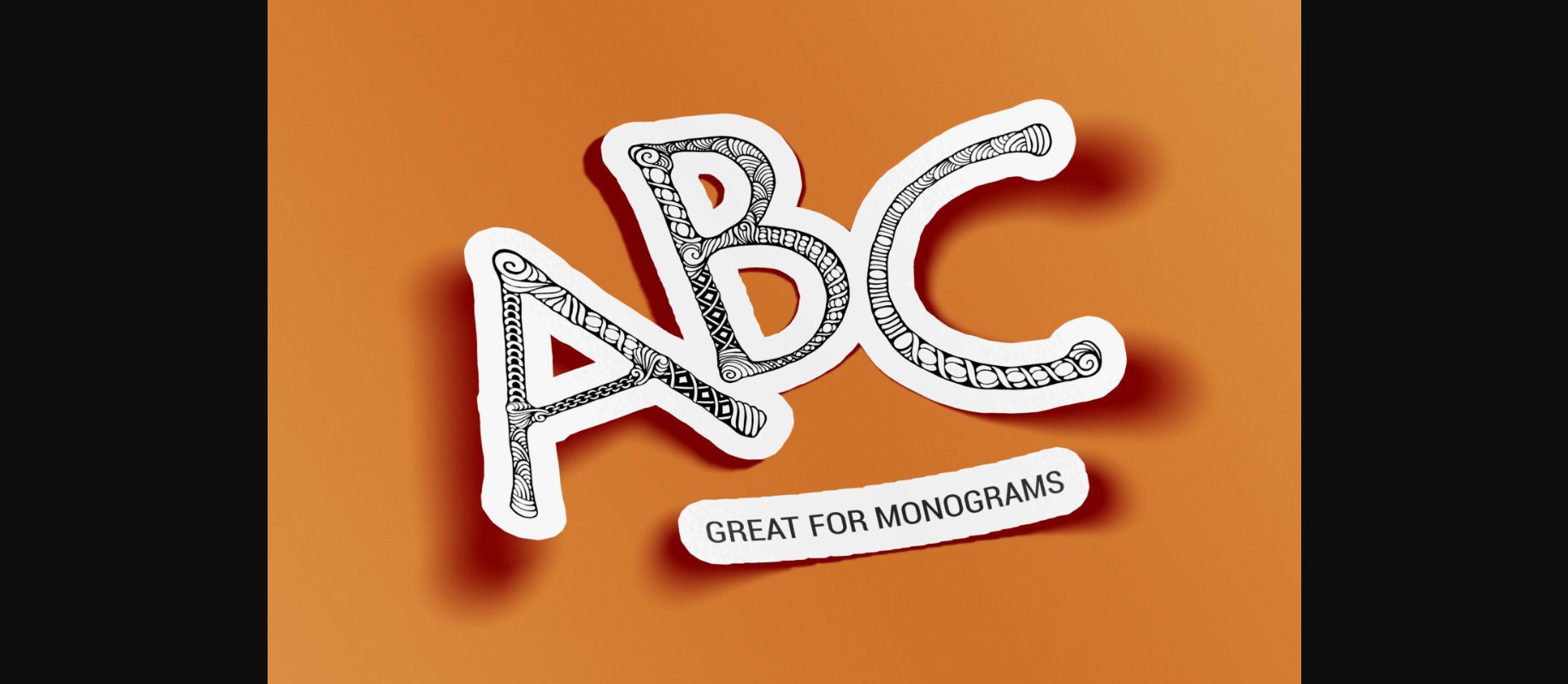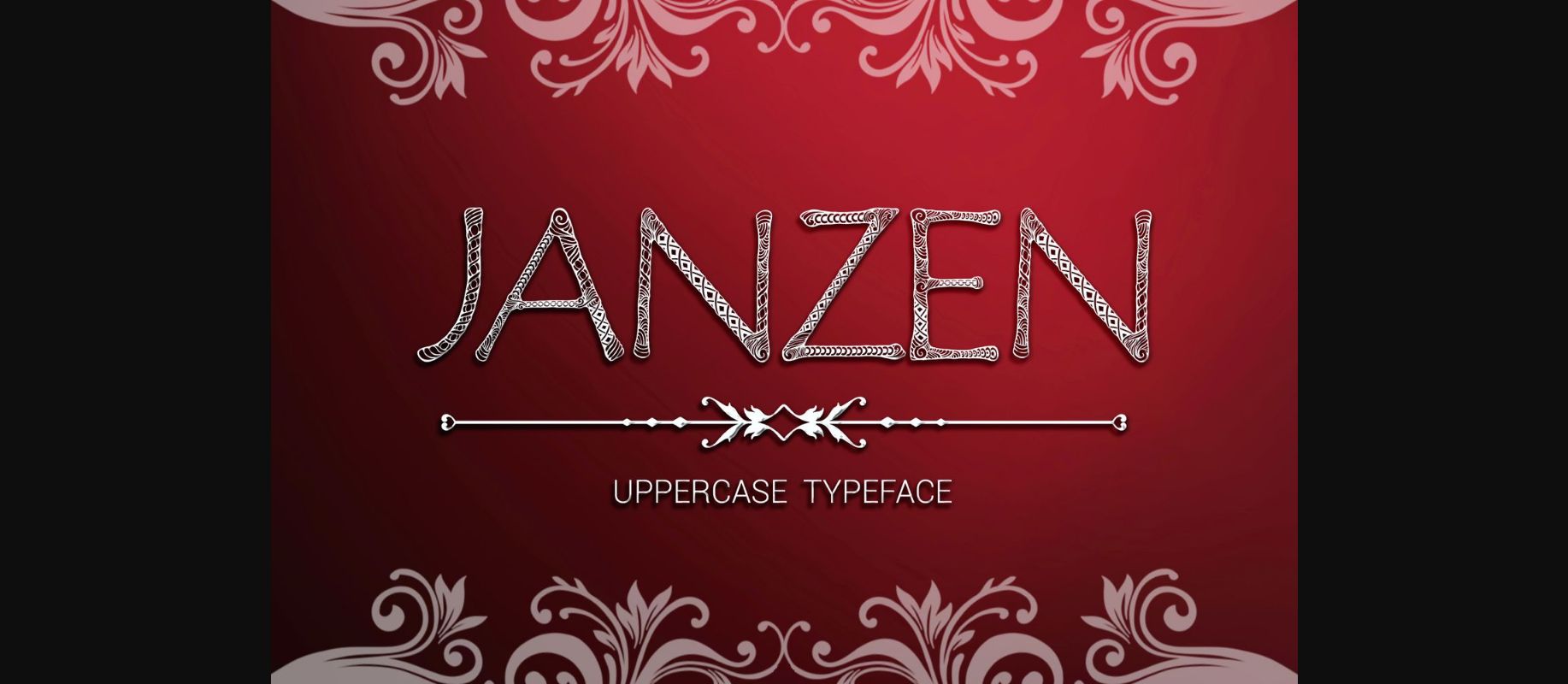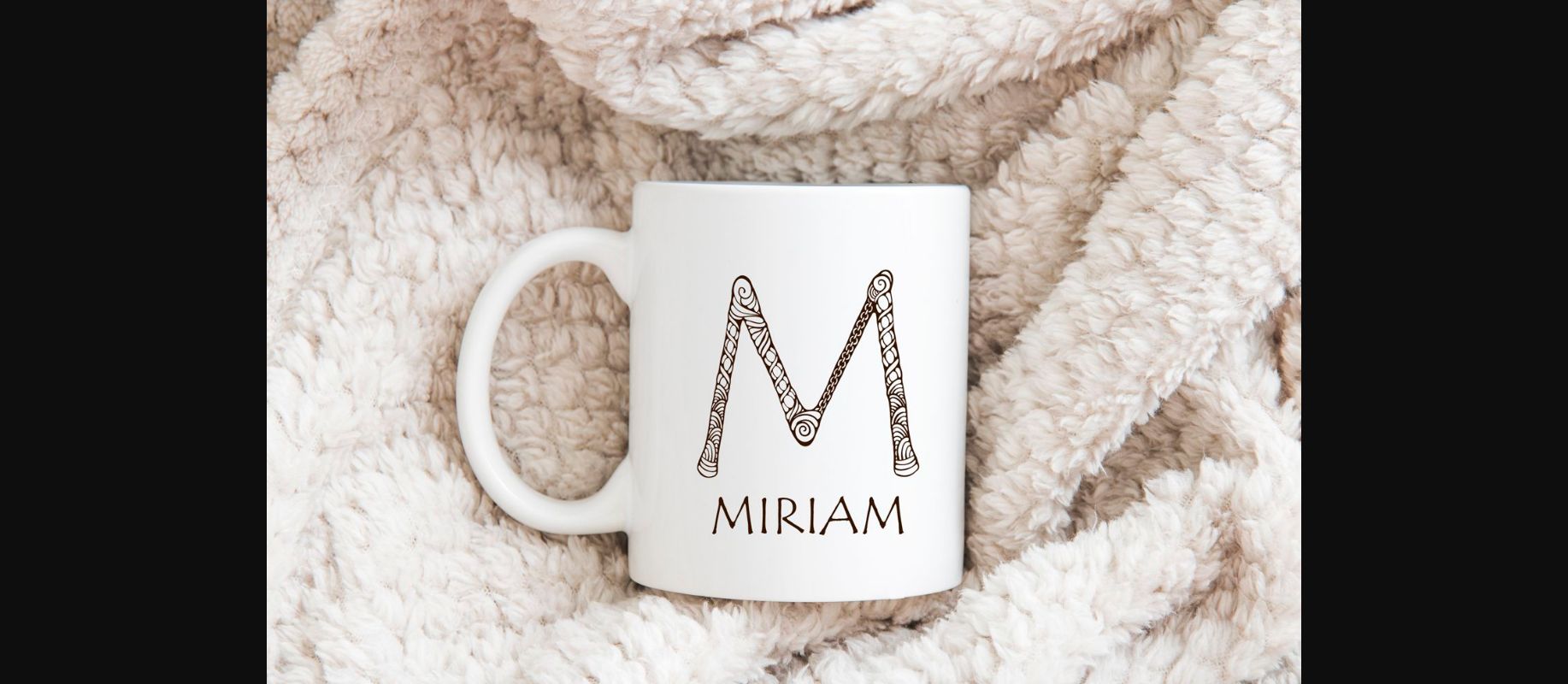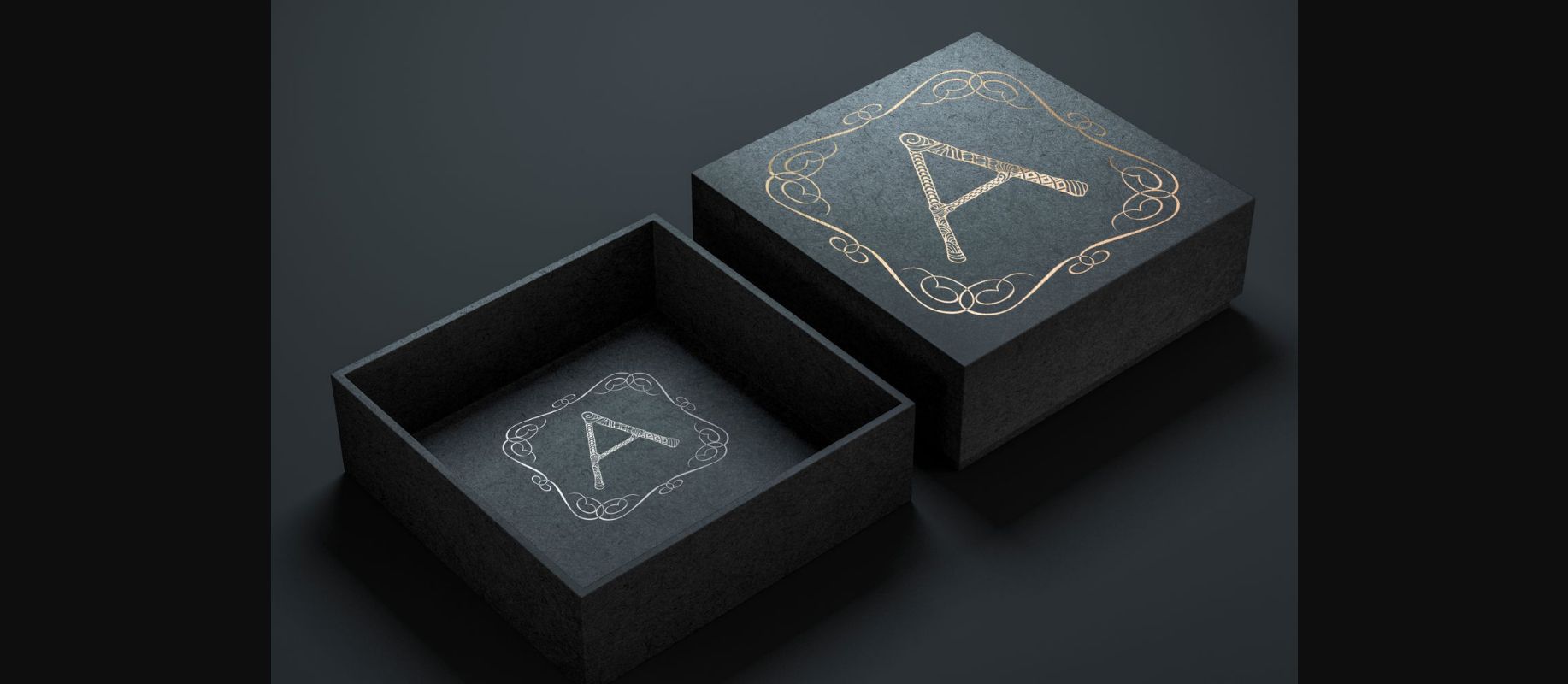
About Janzen Font
The Janzen is a stunning handcrafted, decorative uppercase font that is perfect for giving your designs and crafting projects a lot of texture and charm. Itβs perfect for monogram purposes, and giving your content a branded look.